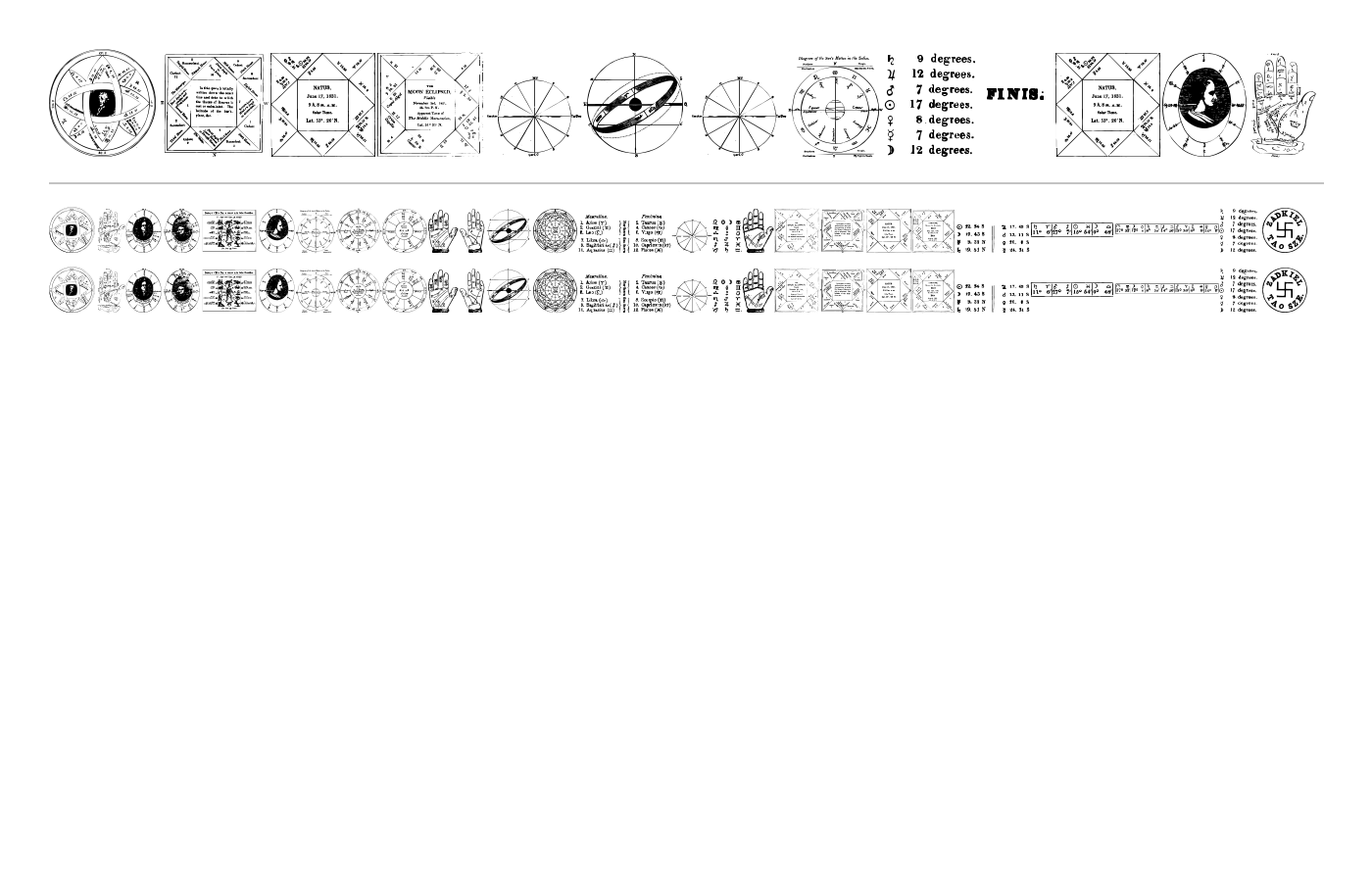
Astrology tfb is a decorative display font that features intricate, vintage-inspired astrological symbols and charts rather than traditional letterforms. Its detailed, black-and-white design conveys an antique, mystical atmosphere ideal for esoteric or historical themes. This font works best in creative projects like themed posters, packaging for metaphysical products, or editorial layouts seeking a unique, old-world charm.
Astrology tfb Font
About Astrology tfb Font
| Font family | Astrology tfb Font |